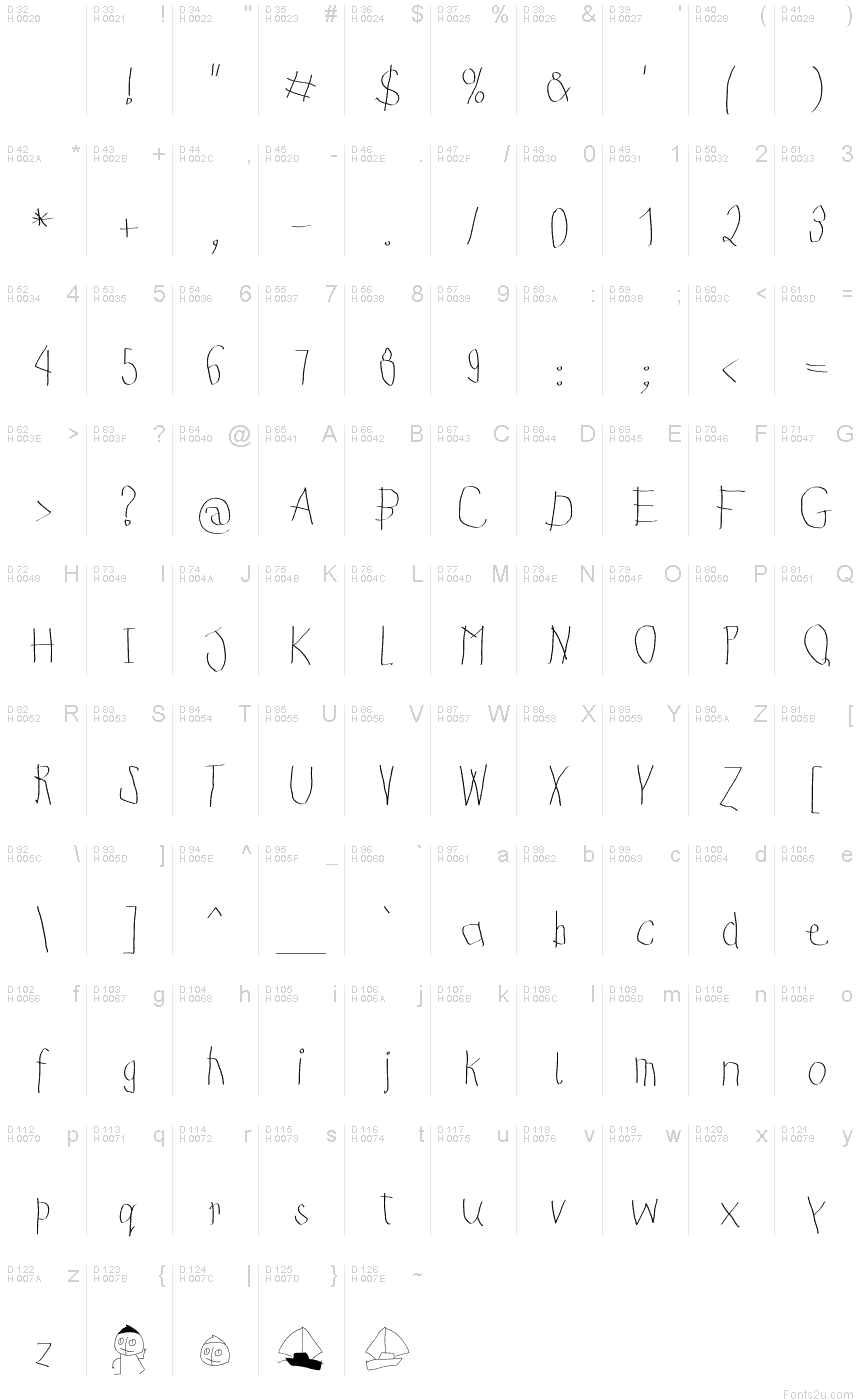
KidsFirstPrintFont
Kids First Print Font font by M. Klein is a free handwritten typeface that captures the wobbly charm of a child’s first neat printing while staying clean and easy to read. The letters are tall, skinny, and slightly uneven, like they’ve been drawn with a fine felt-tip pen—playful enough for kids, but orderly enough for clear instructions, labels, and short blocks of text. It takes the guesswork out of finding a handwriting style that feels genuinely childlike without turning messy.
Using Kids First Print Font, classroom worksheets, flashcards, early reader book pages, behavior charts, kids’ apps, birthday invitations, and craft labels all gain a friendly, approachable voice. This free font works beautifully at medium sizes where its quirky strokes stay crisp. For a simple pairing, combine it with a plain rounded sans serif for body copy, letting Kids First Print Font handle headings, prompts, and anything that needs a warm, handwritten touch.